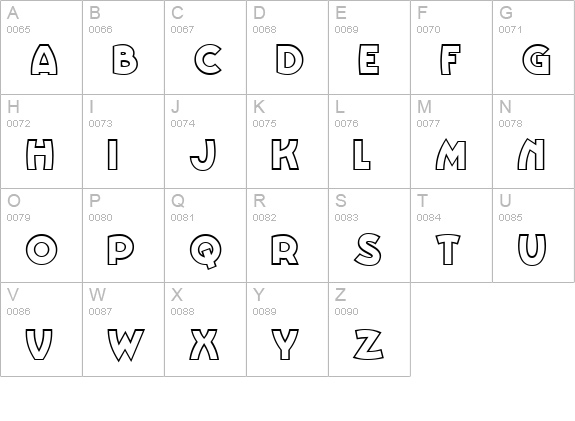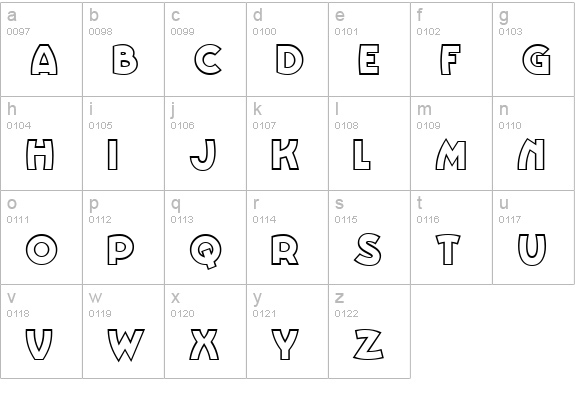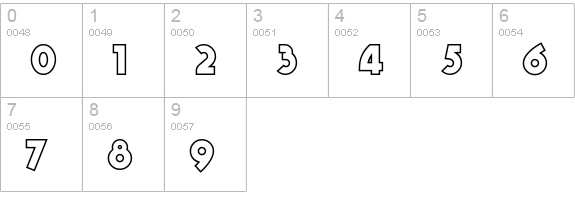
VinnieBoomBahNF Font Details
Introducing VinnieBoomBahNF, a captivating and dynamic font that will bring a burst of energy to your designs. This font is not only visually striking but also versatile, making it perfect for a wide range of creative projects. VinnieBoomBahNF is a fusion of boldness and playfulness, combining sharp edges with smooth curves to create a truly unique and eye-catching typeface. Its charismatic appearance is sure to leave a lasting impression on your audience, whether you're designing a logo, poster, or any other form of visual communication. What sets VinnieBoomBahNF apart is not just its stunning aesthetics, but also its versatility. This font is designed to adapt to various design styles and contexts, effortlessly complementing both modern and traditional layouts. Its wide range of weights and styles allows for endless creative possibilities, ensuring that you can achieve the perfect look and feel for your project. And the best part? VinnieBoomBahNF is available for free! Yes, you read that right. This incredible font can be freely downloaded at FontsMarket.com, making it accessible to designers of all levels. So whether you're a seasoned professional or just starting out on your creative journey, VinnieBoomBahNF is ready to elevate your designs to the next level. Don't miss out on the opportunity to add this exceptional font to your collection. Download VinnieBoomBahNF today and let its captivating charm and versatility take your designs to new heights.